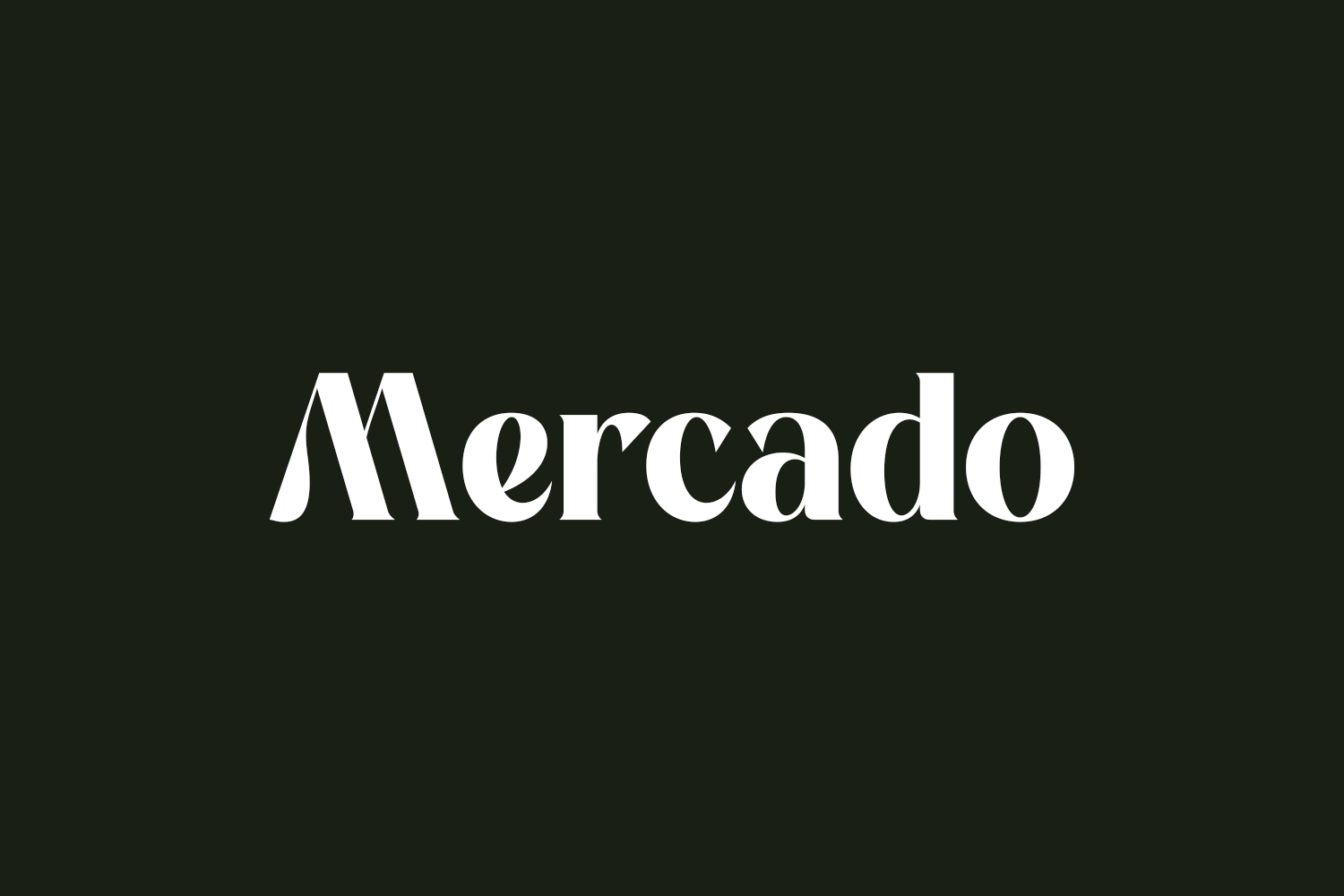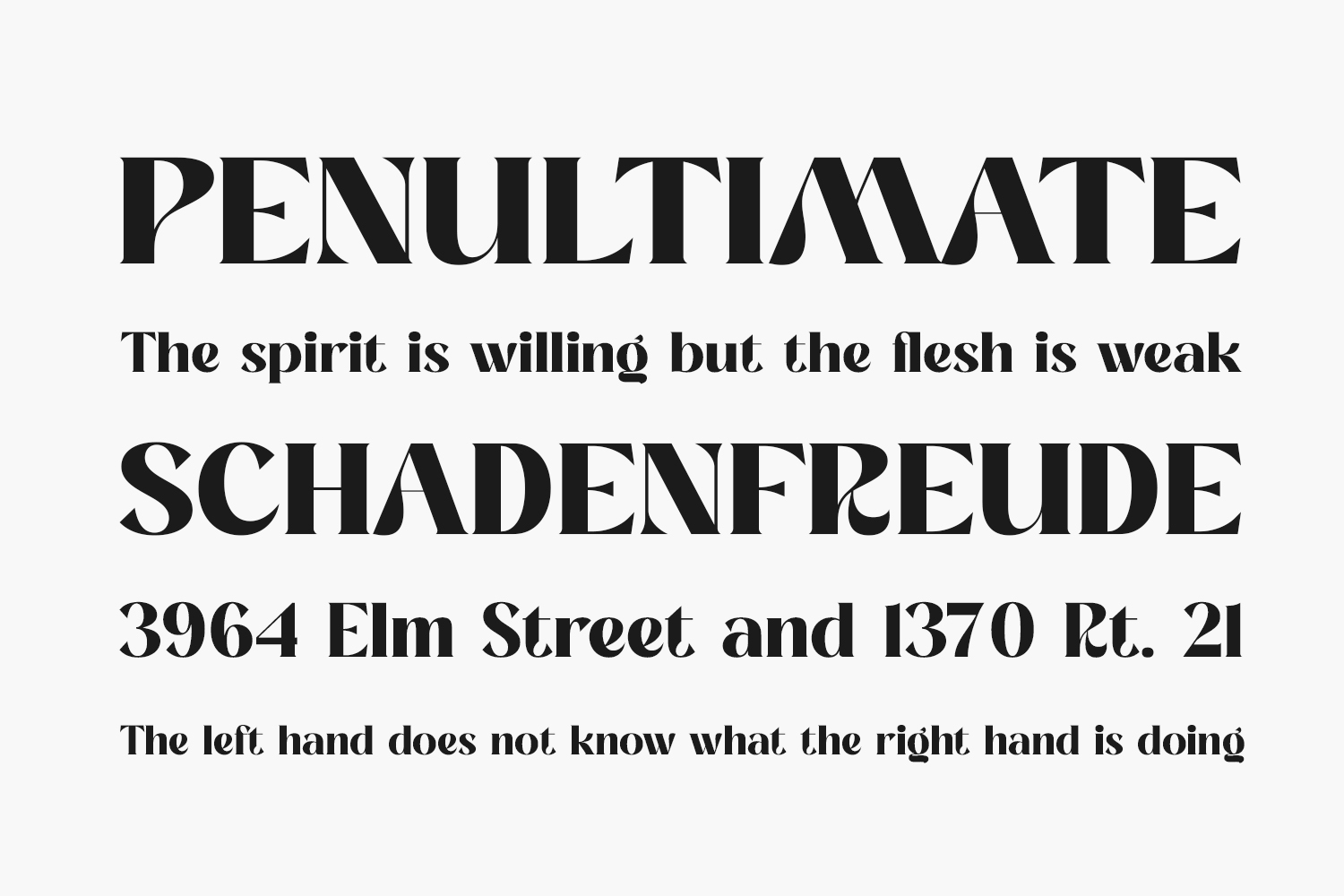
Experience the sophistication of Mercado Free Font, a blend of modernity and classic charm. Its distinctive style makes it ideal for creating elegant and luxurious logos, book or movie titles, fashion brands, magazines, clothing designs, lettering, quotes, and beyond. Elevate your designs with Mercado’s timeless appeal. Download the font for free if you need it for personal use or purchase the full version for commercial use.